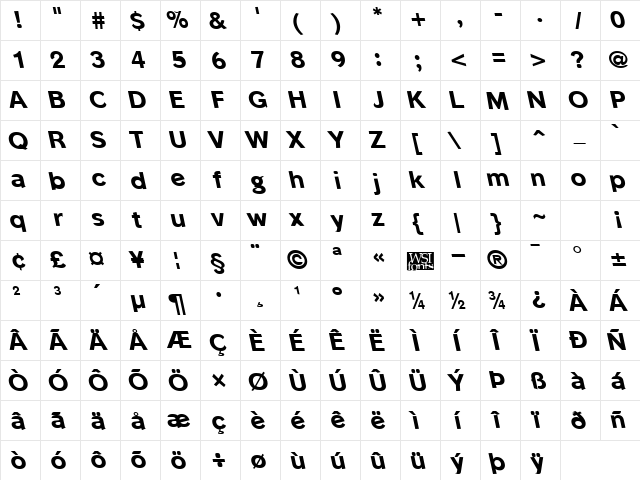
PhinsterLeftyXbold Regular
Design Context for PhinsterLeftyXbold Typeface
PhinsterLeftyXbold is a composed and adaptable typeface that performs quietly and consistently across a wide range of design contexts. The heavy weight commands attention and anchors typographic hierarchies.